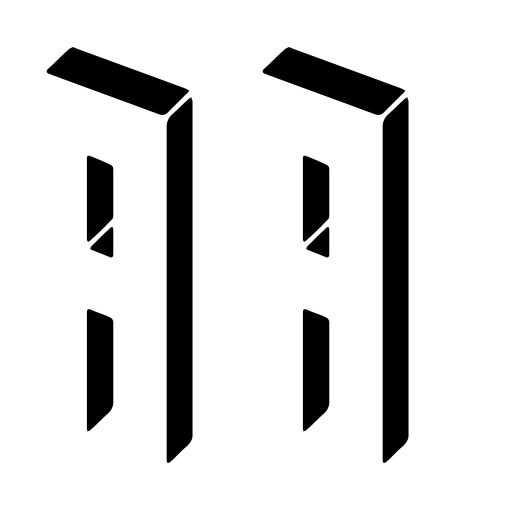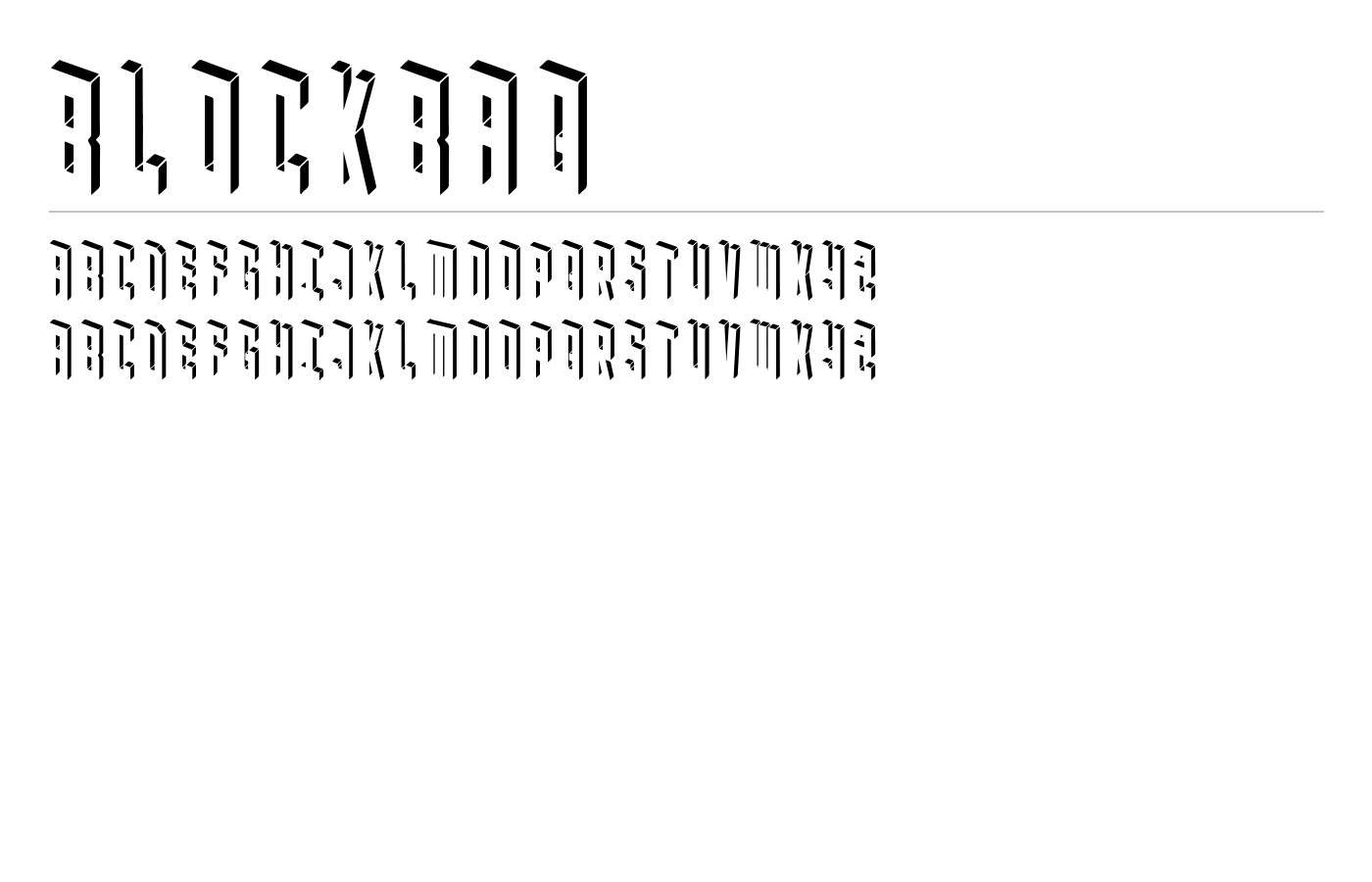
Blockbaq is a bold, condensed sans serif font with a modern, geometric style characterized by sharp, angular lines and high contrast between thick and thin strokes, creating a striking 3D block effect. Its uppercase-only design and unique letterforms make it ideal for eye-catching headlines, logos, and branding that demand a futuristic and industrial vibe. This font works best in display settings where its strong personality can stand out without compromising readability.
Blockbaq Font
About Blockbaq Font